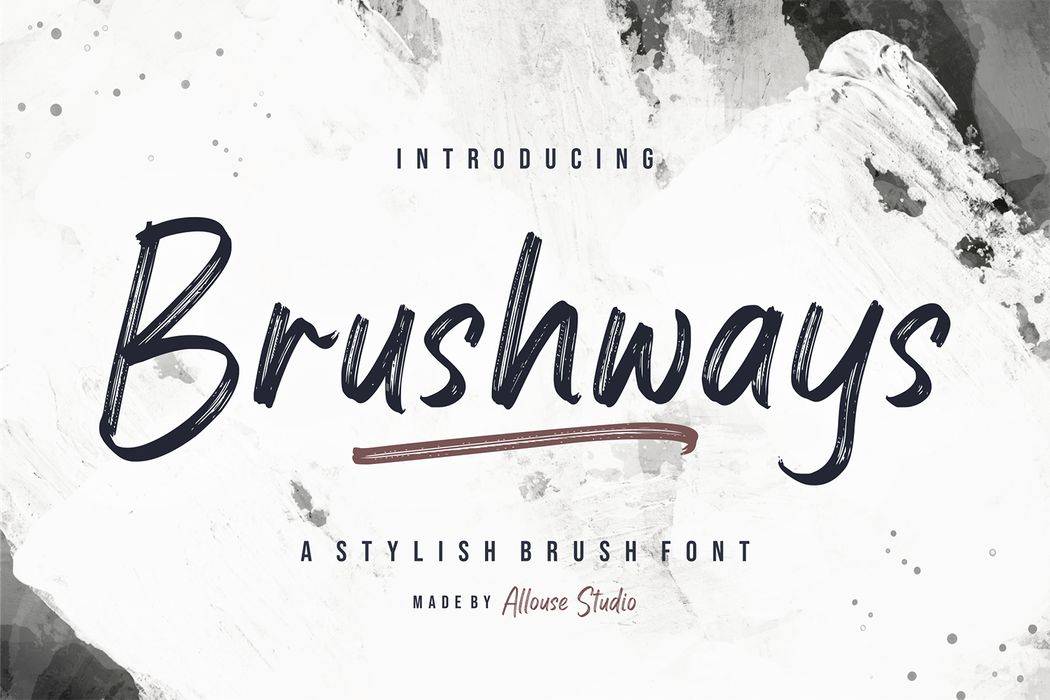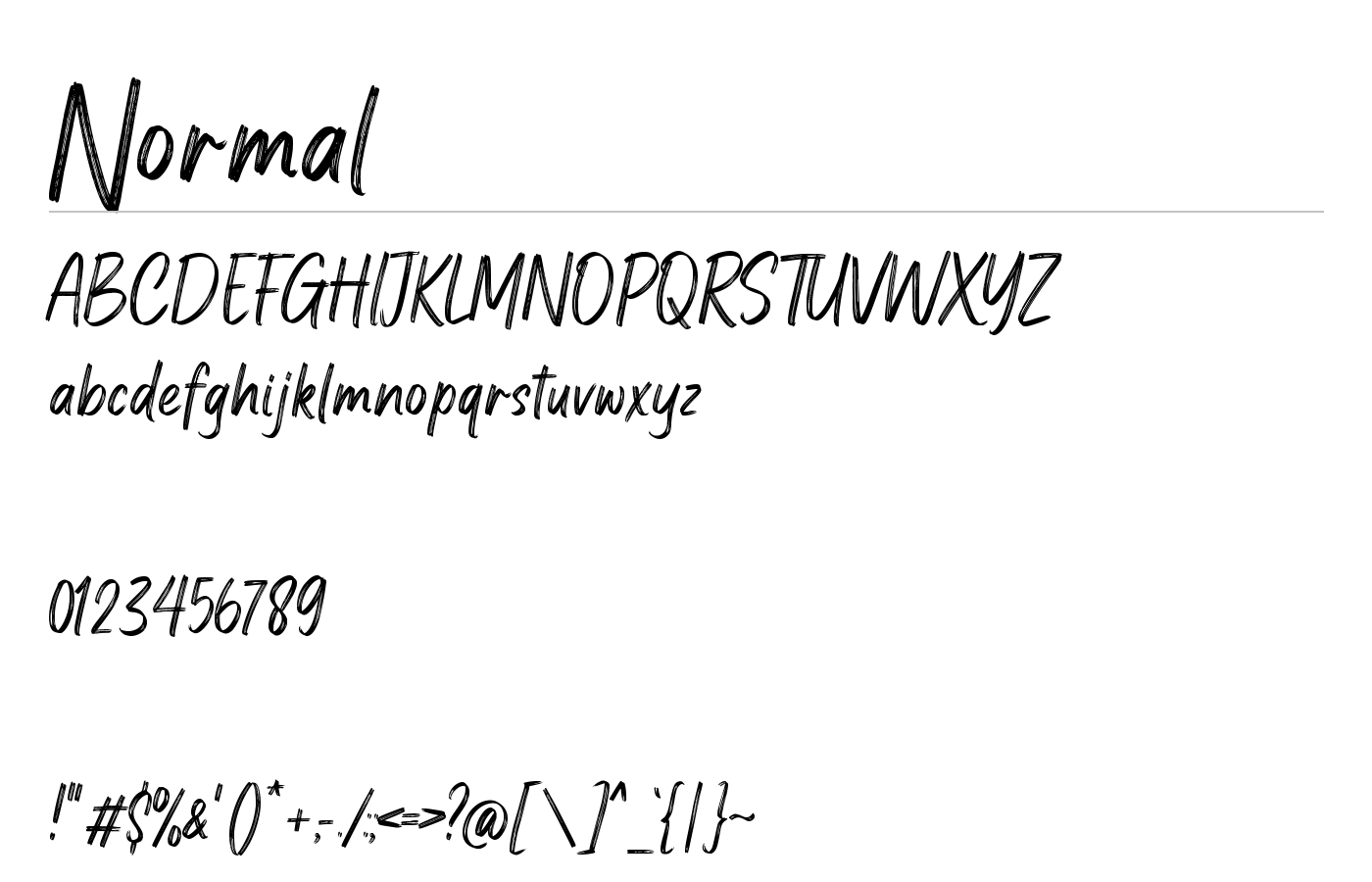
Brushways is a lively handwritten font with a casual, brush-script style that feels natural and artistic. Its tall, slightly condensed letters with textured strokes give it an expressive, energetic vibe perfect for creative projects, informal branding, and playful headlines. This font works best where a personal, handcrafted look is desired, adding warmth and personality without sacrificing readability.
Brushways Font
About Brushways Font